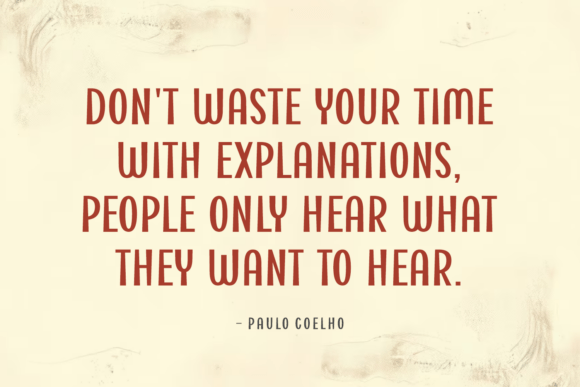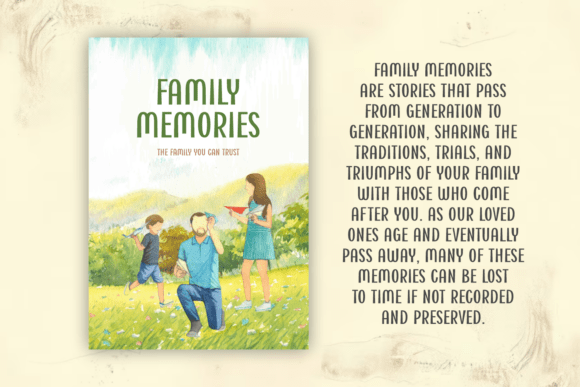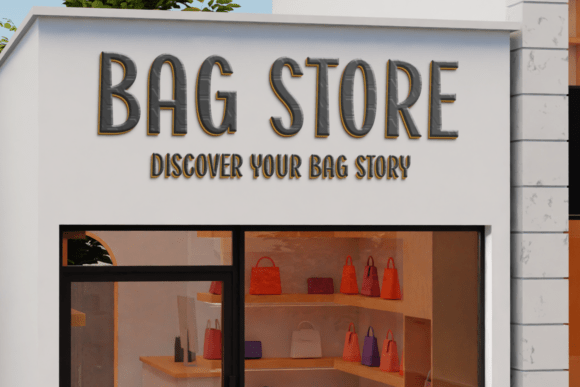
Introduction to Modern People Font
As you’re brainstorming ideas for your next creative project, the right font can make all the difference. Imagine the thrill of discovering a typeface that perfectly captures the essence of your vision, elevating your design from ordinary to extraordinary. For designers seeking to add a touch of sophistication and elegance to their work, the Modern People Font is an excellent choice.
This captivating display typeface is a valuable resource for designers, offering a unique blend of charm and readability. Whether you’re crafting attention-grabbing banners, impactful headlines, or product packaging, the Modern People Font is sure to make a lasting impression. With its high-quality design and transparent background, it’s the perfect addition to any design project. And the best part? It’s available for free download, making it an accessible design resource for creatives of all levels.
Key Features of Modern People Font
- High-quality design for modern creative projects, available for free download as a design resource.
- Includes 5 unique font styles with transparent background, perfect for backgrounds or overlays in your design.
- Each font style is available in 5 different sizes, from 12px to 72px, allowing for flexible use in various design contexts.
- Resolution: 300 DPI, ensuring high-quality display in both print and digital formats.
- Designed with a modern aesthetic, this font is ideal for use in branding, logos, and creative projects that require a sleek, contemporary look.
Honest Review: Modern People Font
As a designer, I’m always on the lookout for high-quality design resources to elevate my creative projects. Recently, I had the chance to try out the Modern People Font, and I’m excited to share my honest review.
- ✨ Unique and modern aesthetic that adds a touch of sophistication to any design project
- ✨ High-quality vector graphics that ensure crisp and clear rendering, even at large sizes
- ✨ Transparent background option makes it easy to layer and composite with other design elements
However, I do have a few concerns:
- ⚠️ Limited character set, which may not be suitable for extended text blocks or large body text
- ⚠️ Some users may find the font’s modern aesthetic too bold or overwhelming for certain design projects
Overall, I’m impressed with the Modern People Font’s potential to elevate my creative projects. While it may have some limitations, its unique aesthetic and high-quality vector graphics make it a valuable addition to any designer’s toolkit. If you’re looking for a modern and stylish font for your next project, I’d definitely recommend giving it a try.
How to Use Modern People Font
The Modern People Font is a high-quality, versatile design resource that can elevate any creative project. It’s available for free download, making it an excellent choice for designers and non-designers alike.
For the best results, use the Modern People Font with a transparent background to create a clean and modern look. You can also experiment with different font sizes, colors, and combinations to add visual interest to your designs.
The Modern People Font is suitable for a wide range of creative projects, including social media graphics, business presentations, and marketing materials. It’s also an excellent choice for personal projects, such as blog posts, newsletters, and resumes.
Does the Modern People Font have a transparent background?
No, the Modern People Font does not have a transparent background. However, it’s a high-quality font with a clean and modern design, making it perfect for use on various backgrounds. If you need a font with a transparent background, you may want to consider a different design resource.